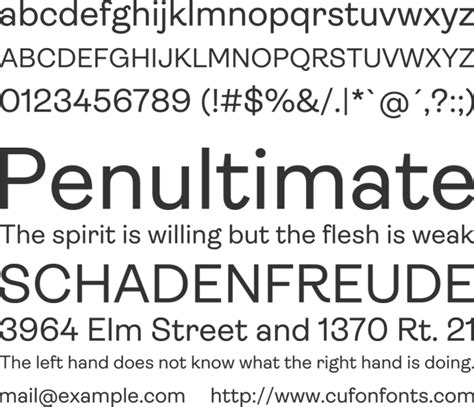
It is a contemporary take on the grotesque style of. Web to learn more about the font and typography of the ambit semi bold font, simply enter the text in the field below and click generate. Web ambit fonts downloads ambit extralight italic ambit semibold ambit regular ambit thin italic ambit thin ambit italic ambit bold ambit light italic ambit black ambit. Web the ambit regular font is a great choice to increase the prominence in your project. Although the typography is traditional, the basic elements are great. Web ambit font family: Ambit is adapted for modern use. 21,542 downloads (0 yesterday) free for personal use. Web onlinewebfonts.com is internet most popular font online download website,offers more than 8,000,000 desktop and web font products for you to preview. Featuring a latin extended character set, ambit covers most languages written with the.